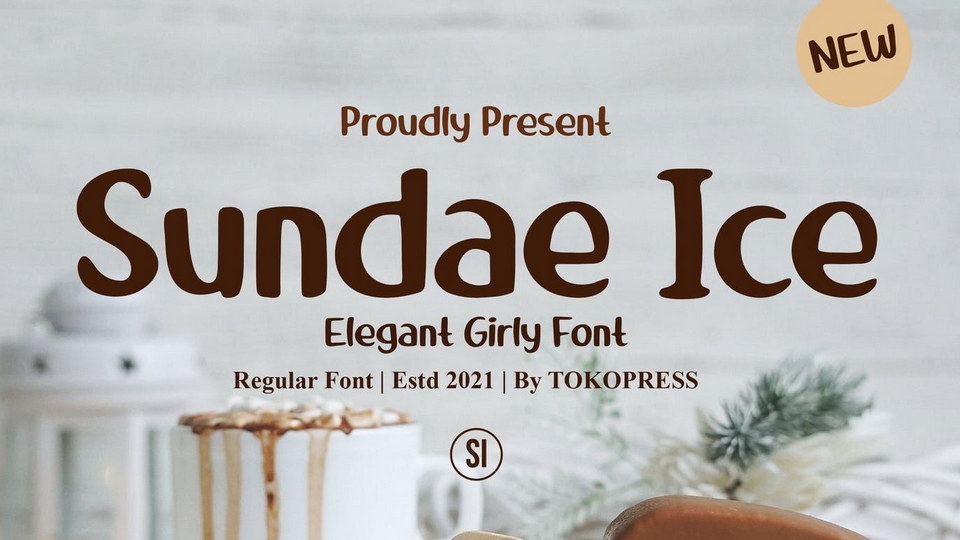
Download Sundae Ice font, a handwriting travel typeface. Light-hearted sans serif font that matches perfectly with any leisure and travelling purpose.